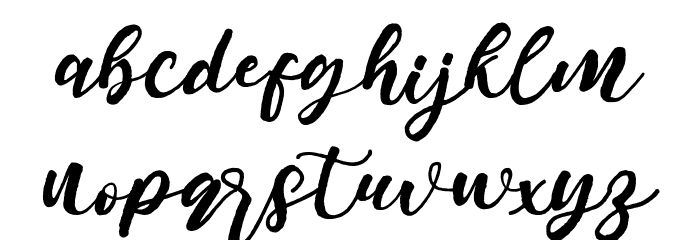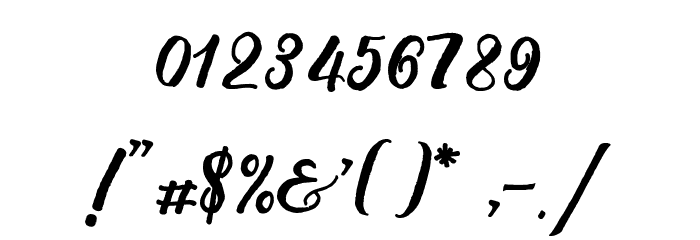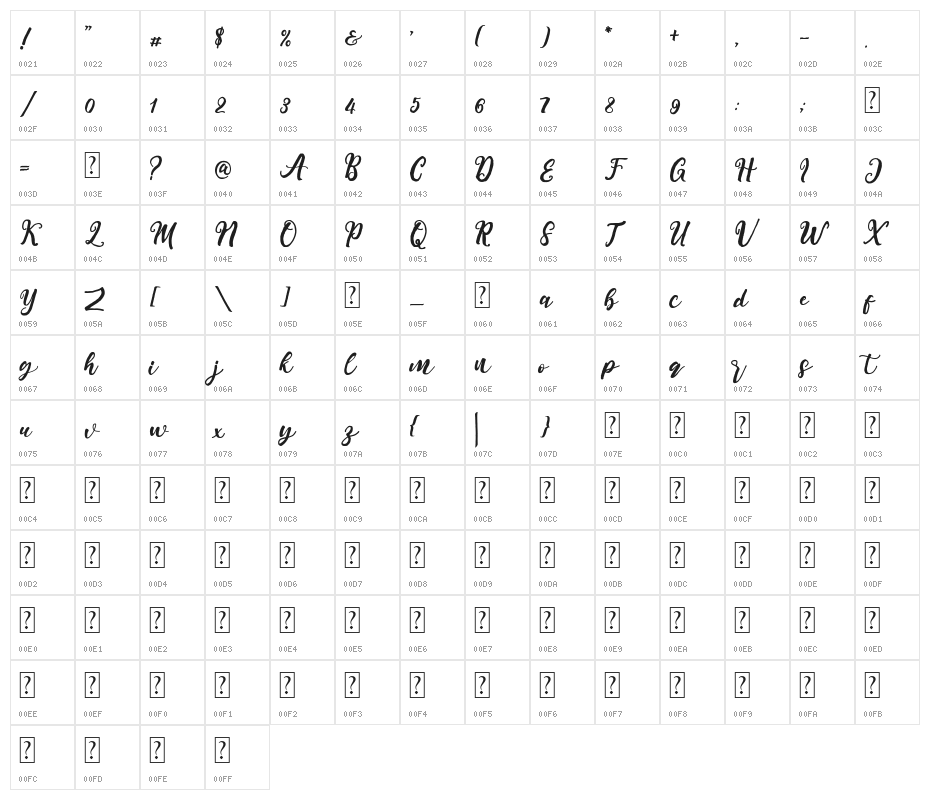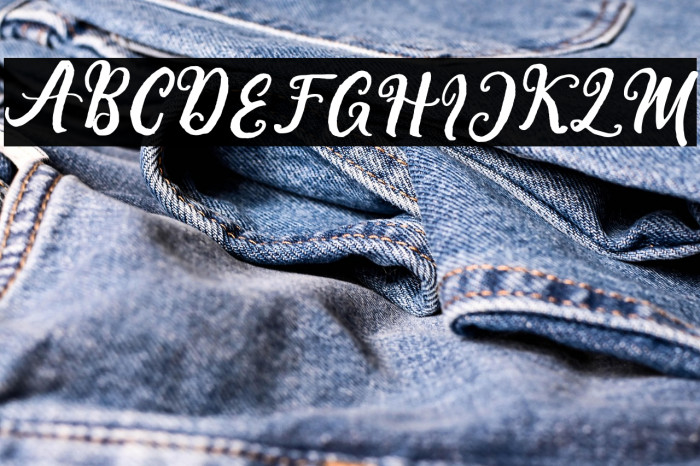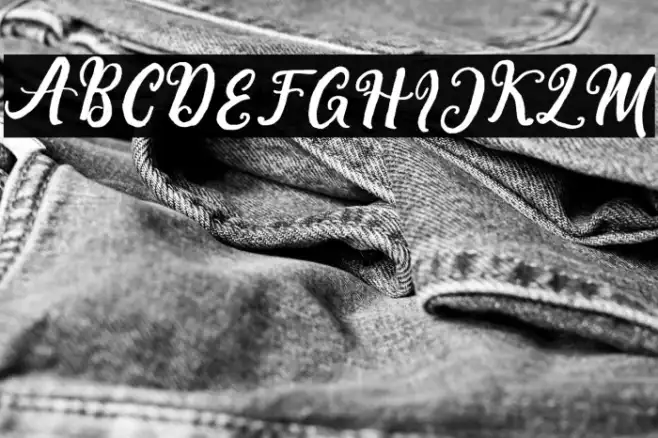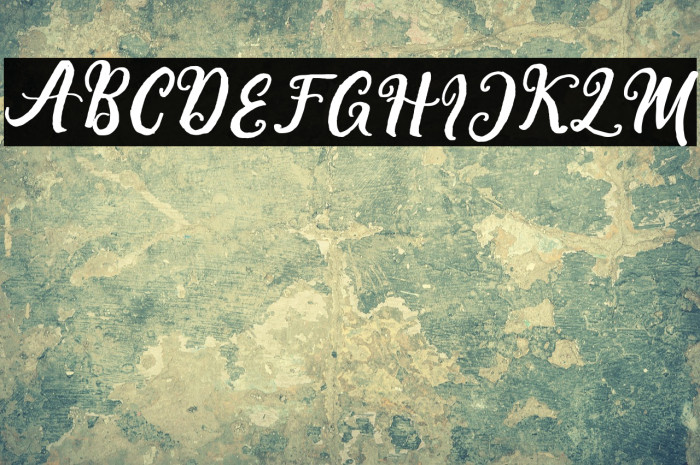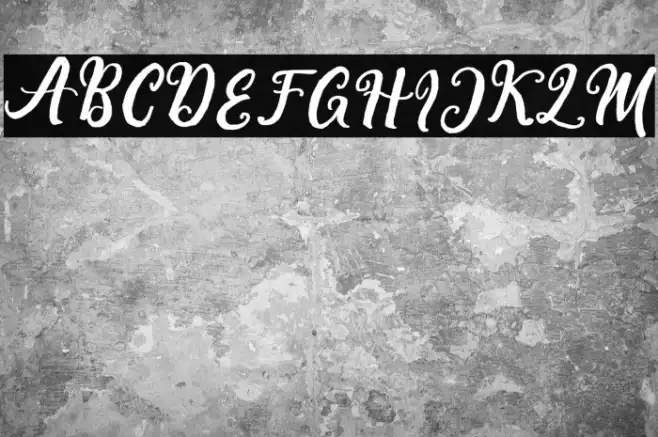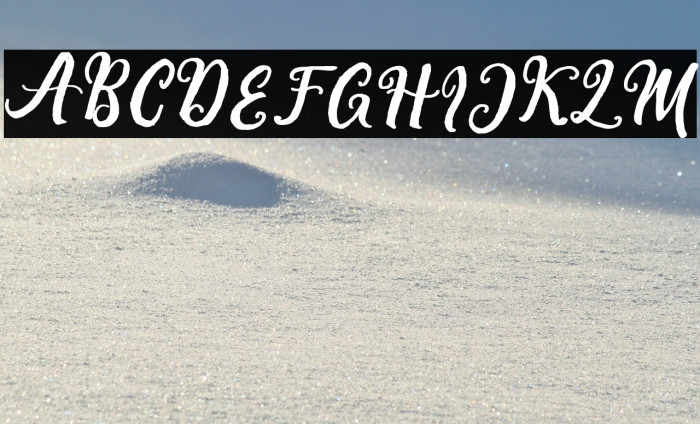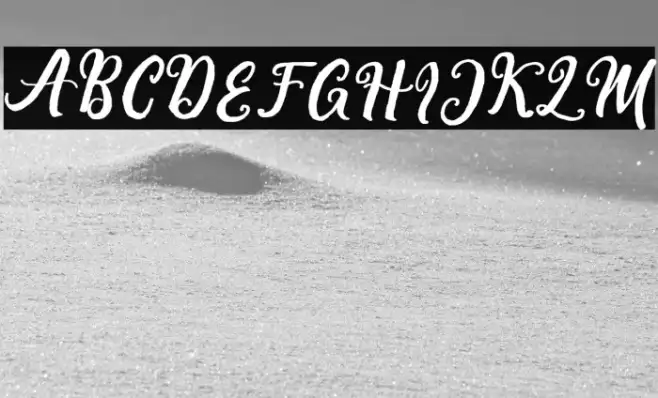
My Shine Font
This font exudes a lively and dynamic script style, characterized by its fluid and cursive letterforms. The uppercase letters are bold and sweeping, with elegant loops and flourishes that give a sense of movement and grace. The lowercase letters maintain a consistent flow, connecting smoothly in a way that mimics natural handwriting. Numbers and special characters are crafted with the same attention to detail, ensuring a cohesive look across all elements. The overall appearance is both stylish and approachable, making it suitable for a variety of creative applications.
A lively and dynamic script font with fluid, cursive letterforms.
- Font: My Shine
- Proposed Projects: Ideal for wedding invitations, greeting cards, branding projects, and social media graphics.
- Category: Script
- Use Case: Logos, Invitations, Social Media Graphics